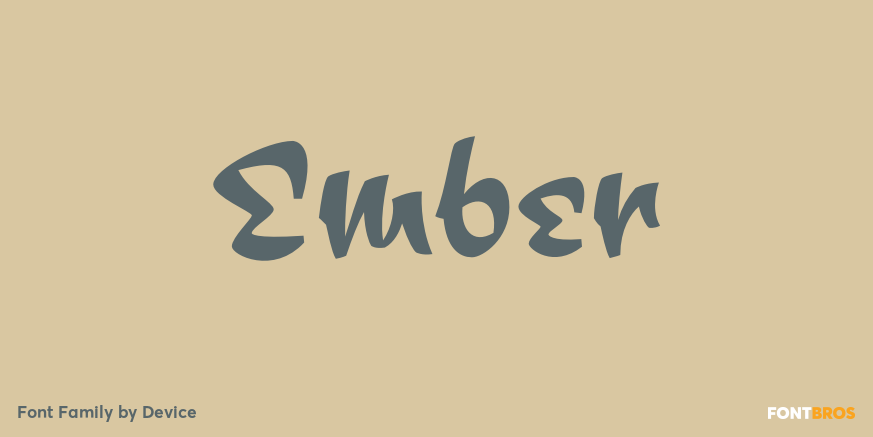
Ember
About Ember
Ember is an informal script with a judicious sprinkling of ligatures that give it a flowing freehand liveliness. Neither overly formal and stuffy nor cheap and cheerful, Ember is elegant yet friendly, sophisticated yet approachable, fun and frivolous…